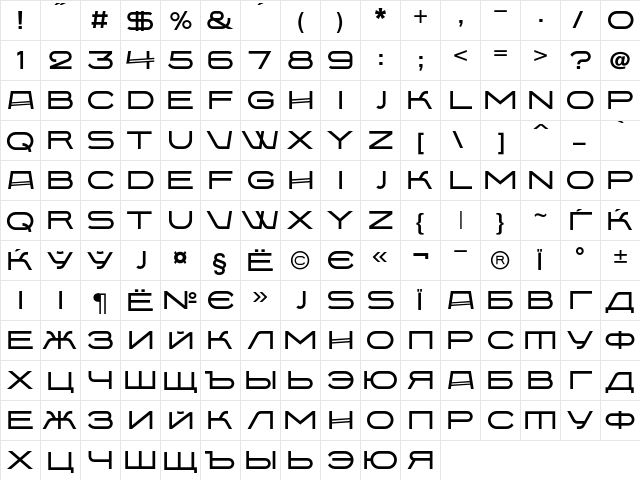
BabaevC Regular
Design Context for BabaevC Typeface
BabaevC offers clean, dependable letterforms without strong stylistic allegiance, making it a practical choice for designers who need flexibility.